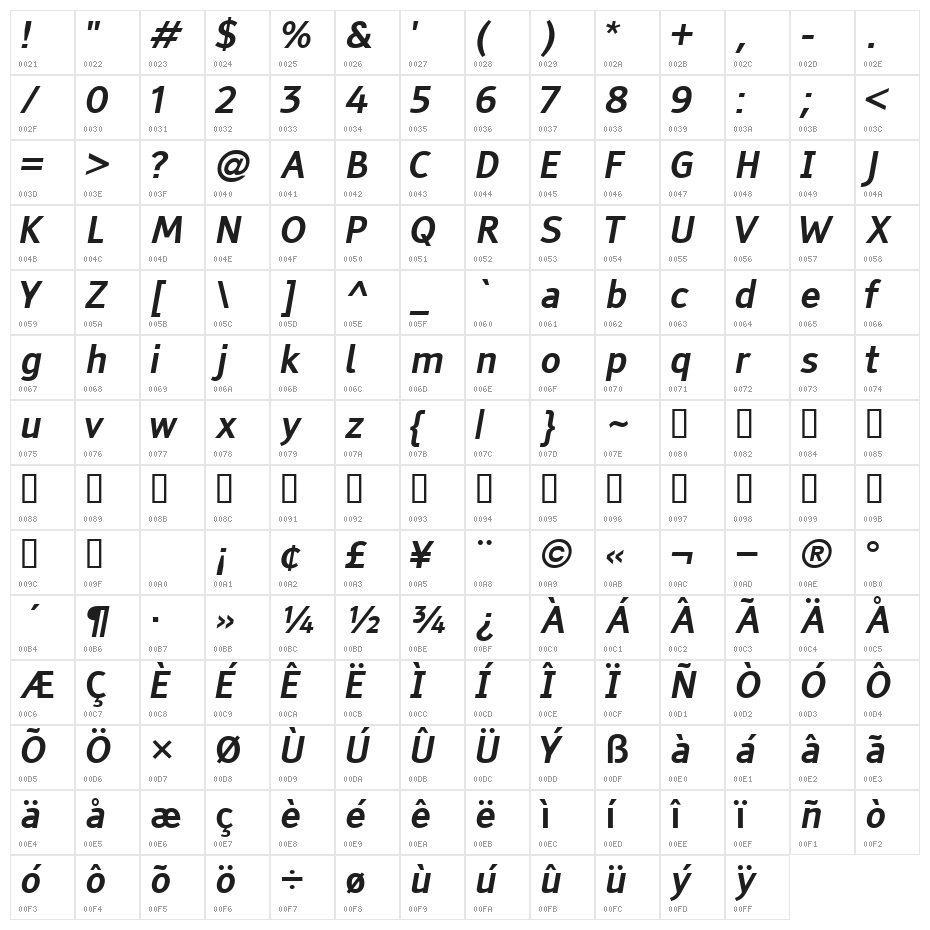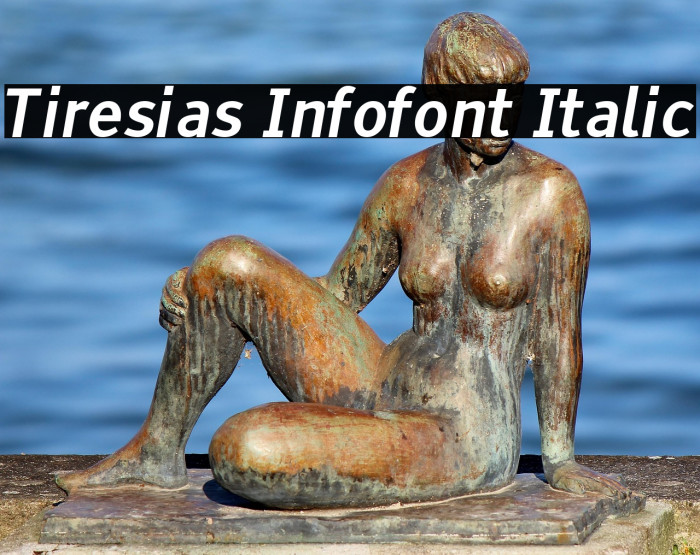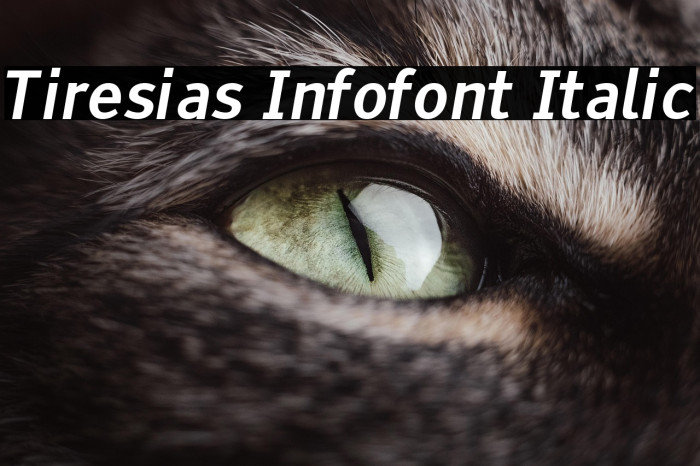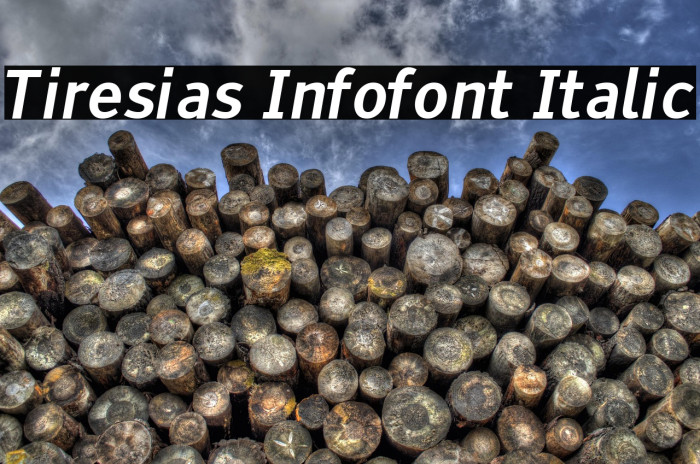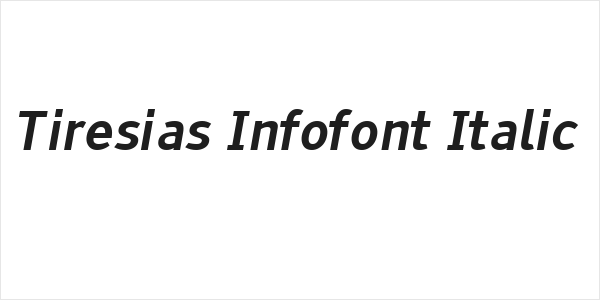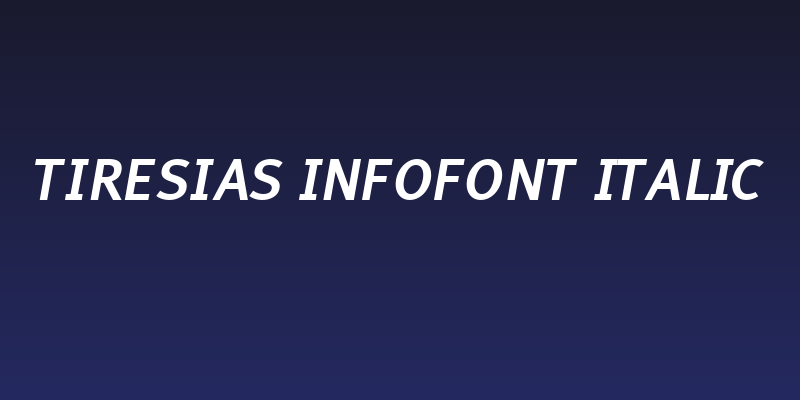
Tiresias Infofont Italic Font
Tiresias Infofont Italic Description
This font features a clean and modern sans-serif style with a slight italic slant, giving it a dynamic and forward-moving appearance. The characters are well-proportioned with a consistent stroke width, contributing to its legibility and readability. The uppercase letters are bold and assertive, while the lowercase letters maintain a friendly and approachable look. The numerals are clear and distinct, making them suitable for data presentation. Special characters are well-integrated, ensuring versatility in various contexts. The overall design is sleek and professional, making it suitable for both digital and print media.